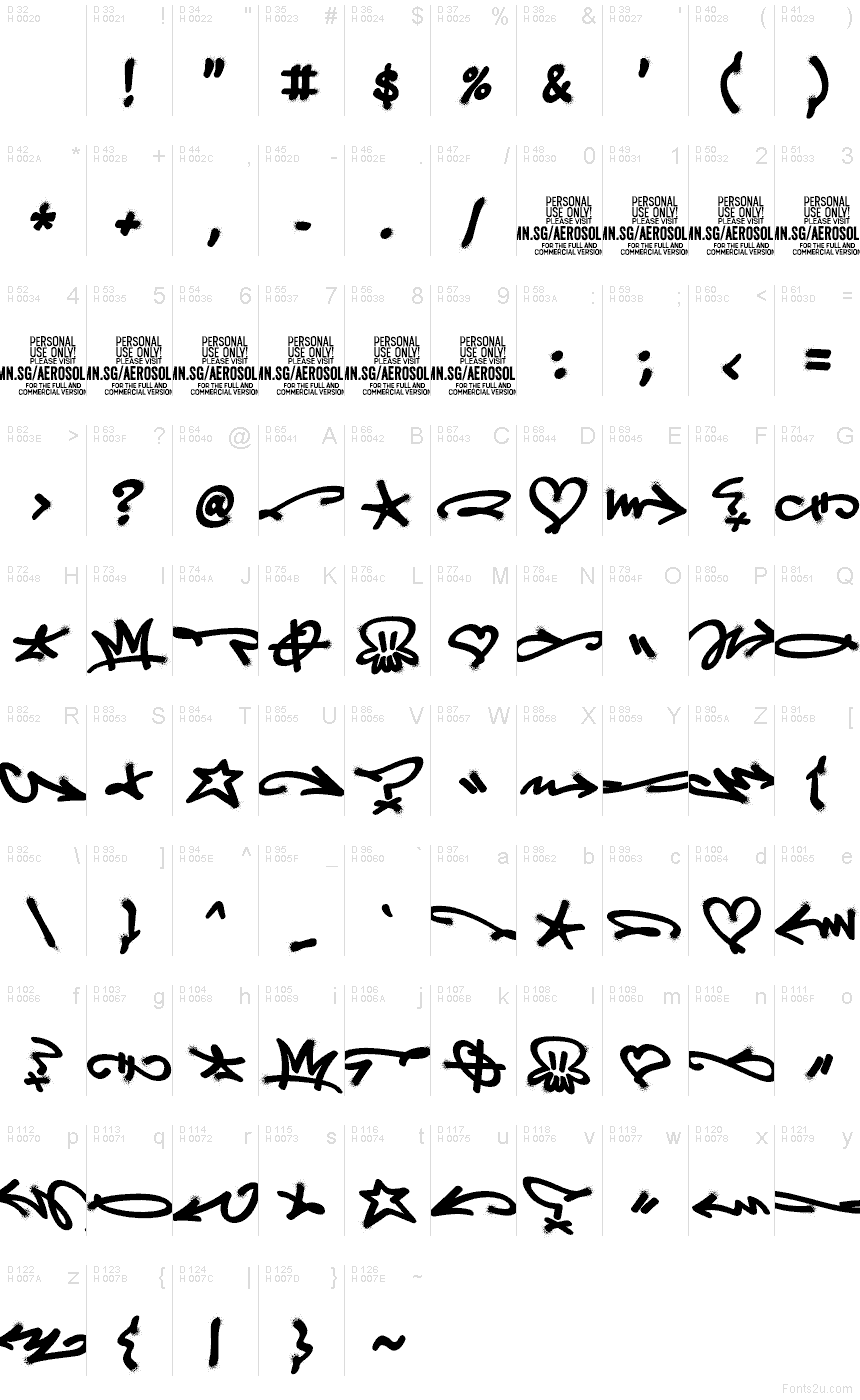
Aerosoldier Spray Symbol PERS Regular
Aerosoldier Spray Symbol font by Mans Greback is a free graffiti dingbats typeface. Built within the Aerosoldier family, it delivers raw, sprayed marks with drippy motion, soft aerosol halos, and gritty edges that feel pulled straight from a concrete wall. The set has a loose, hand-thrown rhythm, so compositions look spontaneous and layered rather than sterile.
Using Aerosoldier Spray Symbol, you can drop quick street cues into poster drops, event flyers, skate decks, album or mixtape art, merch tags, stickers, and social thumbnails. The inky overspray scales beautifully-go big to let the grain breathe, or cluster smaller for dense texture. Pair this free font with a clean, neutral sans-serif to keep the message readable while the symbols bring the attitude.